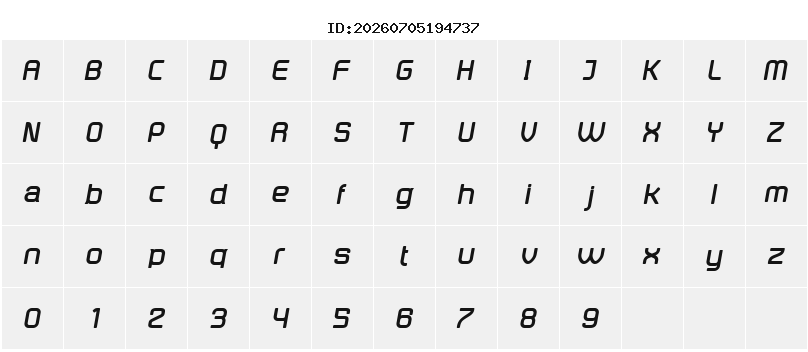
DistillaBold Italic Preview
About DistillaBold Italic.ttf
DistillaBold Italic.ttf is a modern, elegant sans-serif font designed for ultimate readability and visual harmony. Perfect for branding, headlines, web design, and print materials.